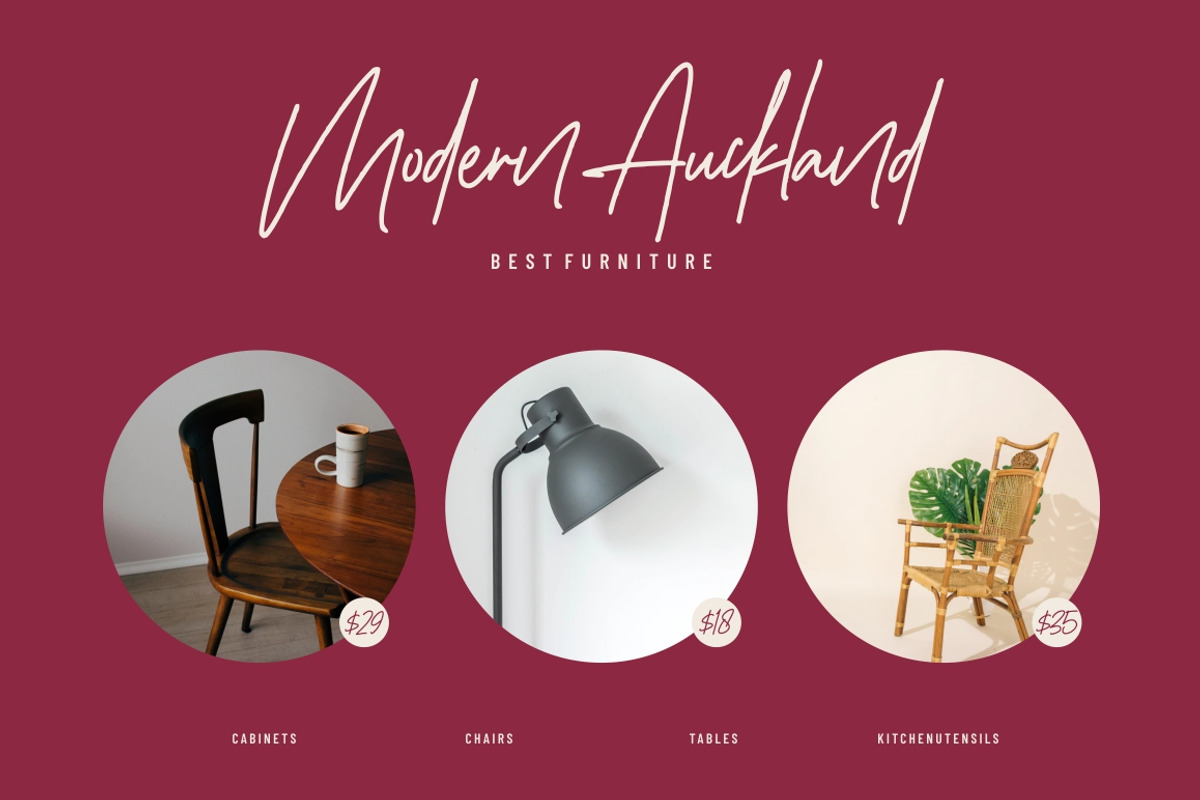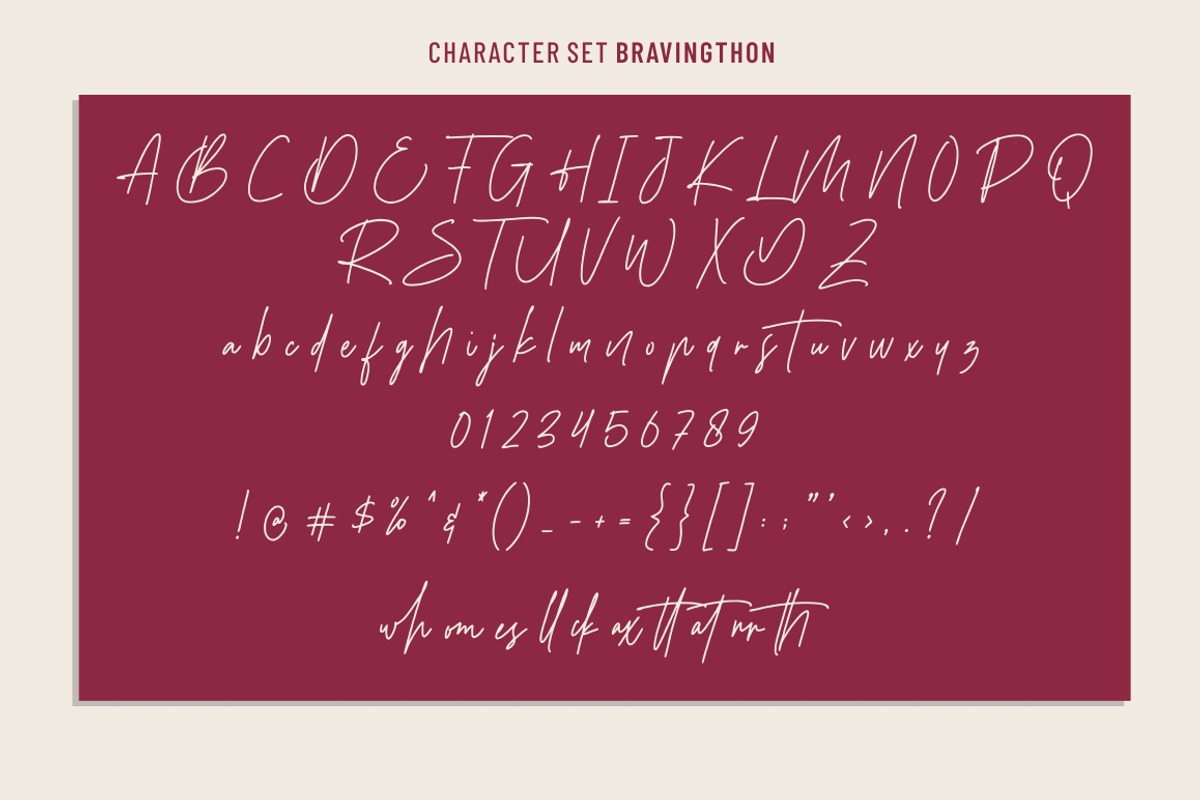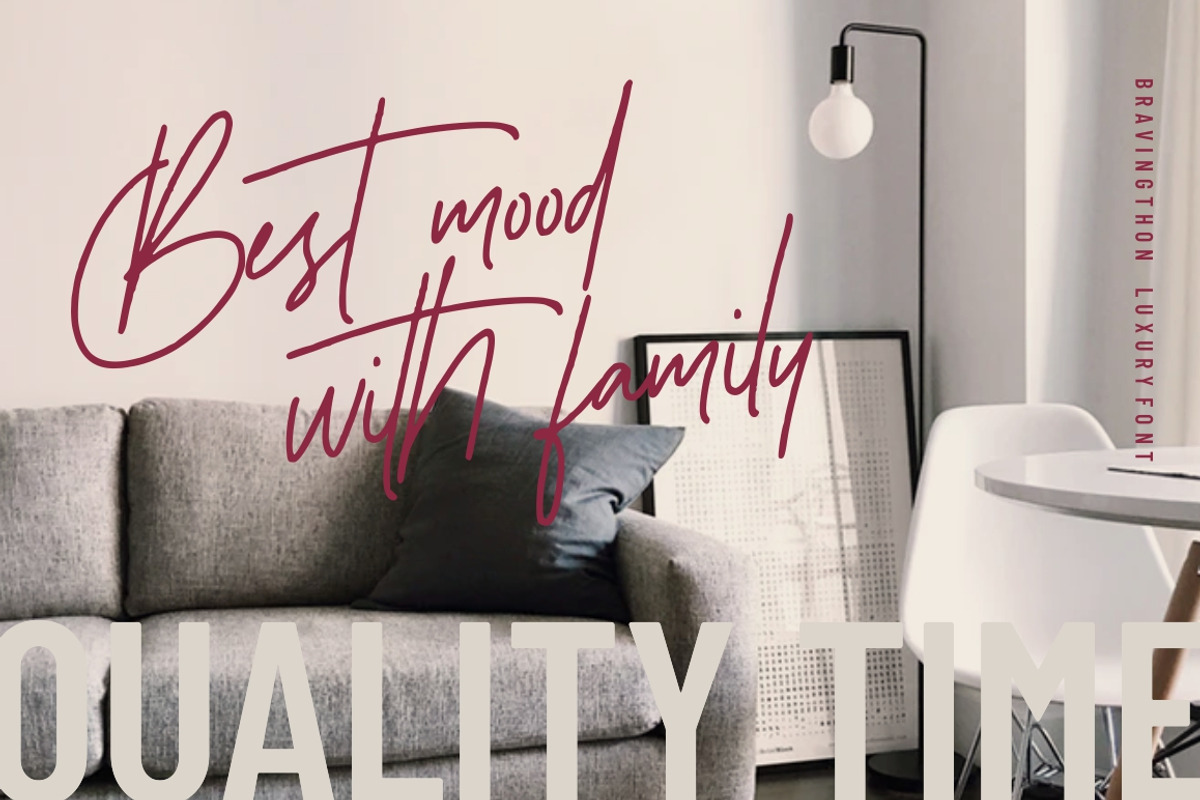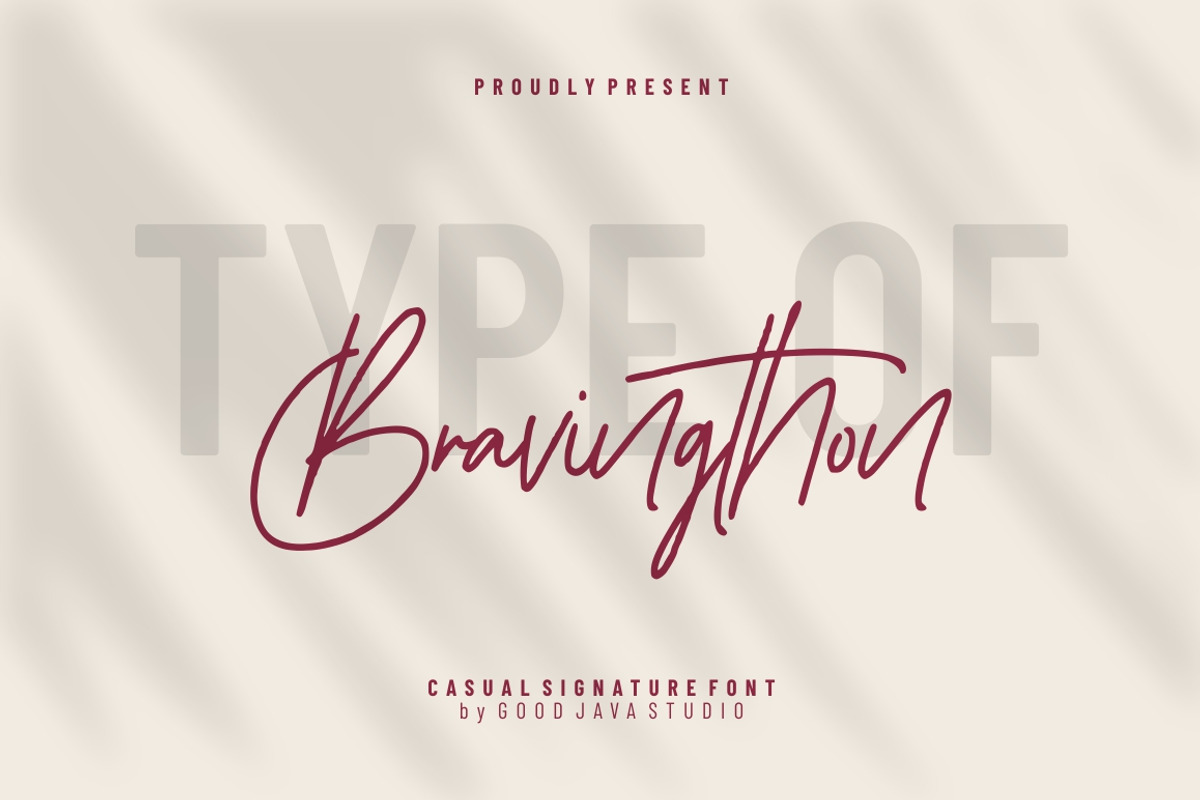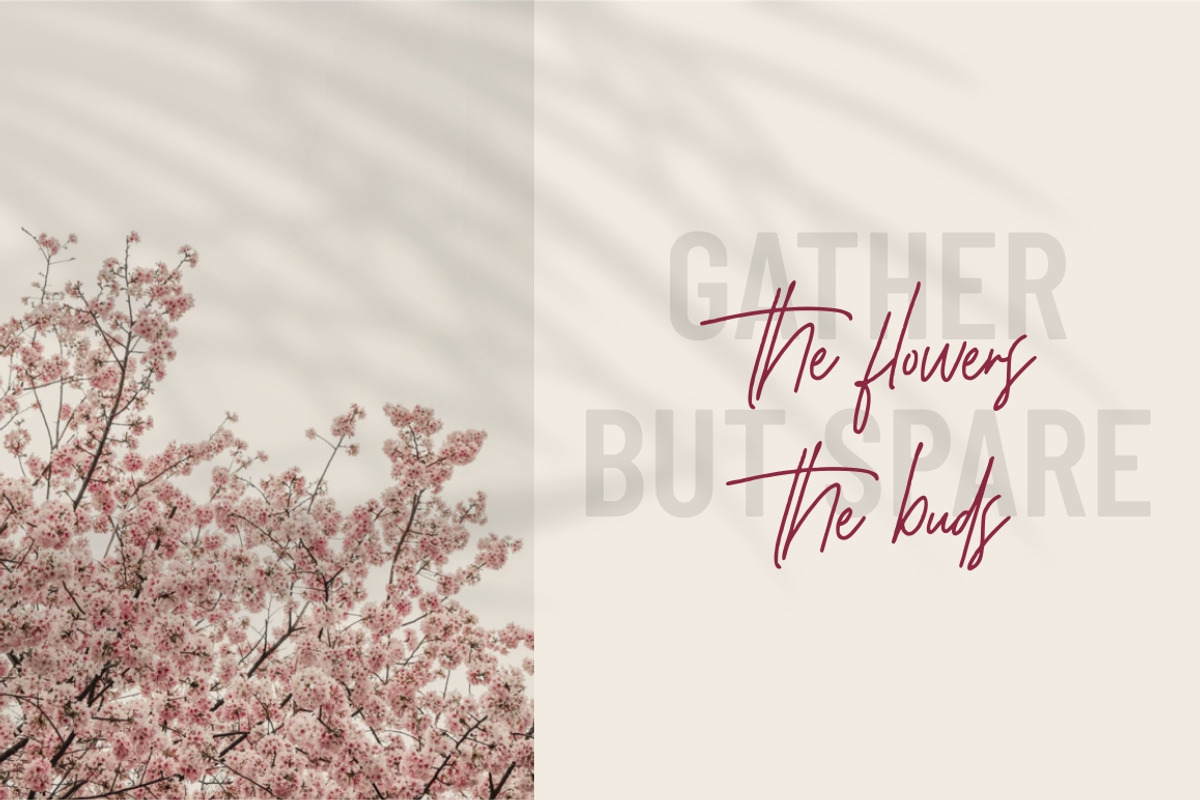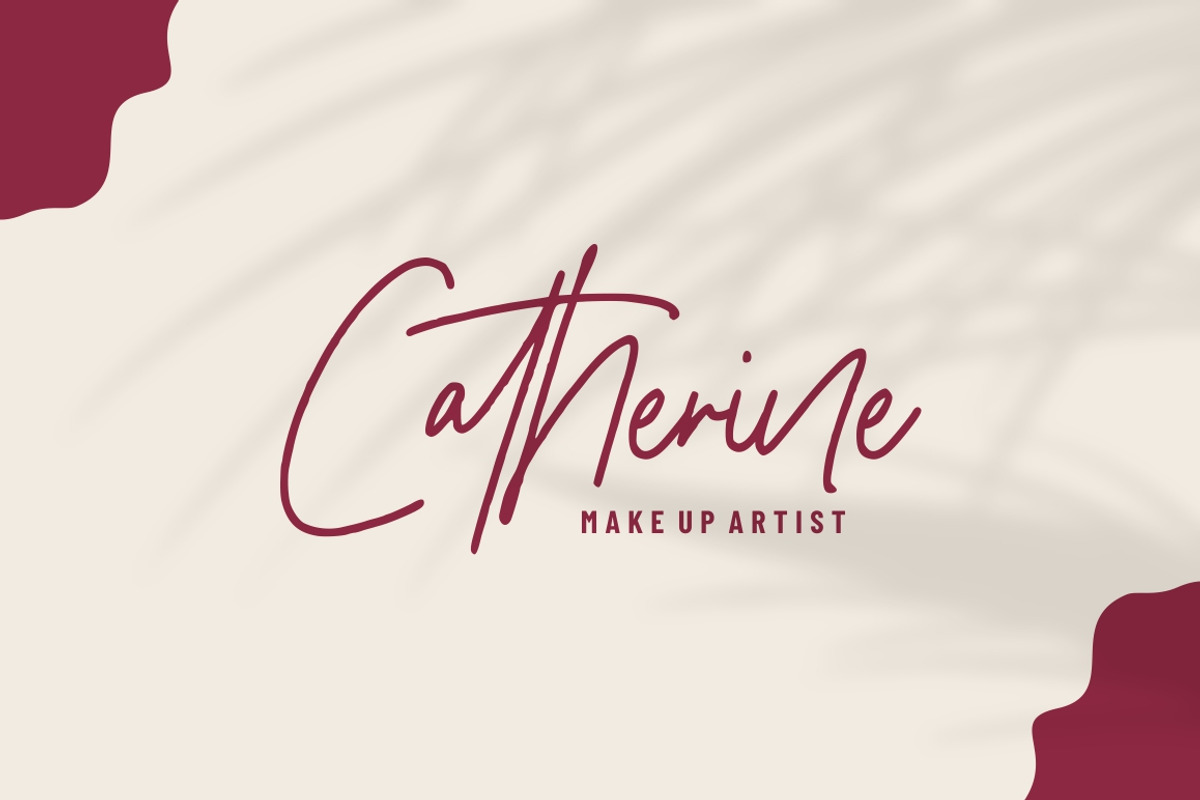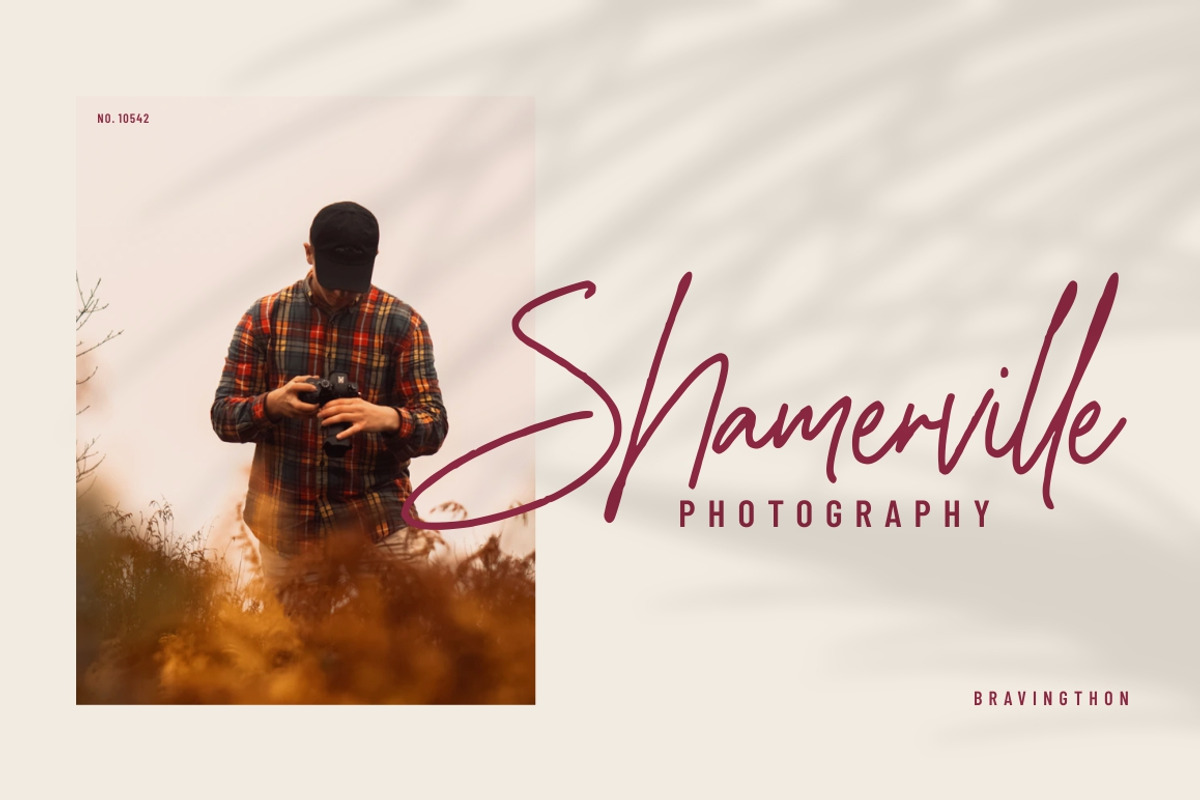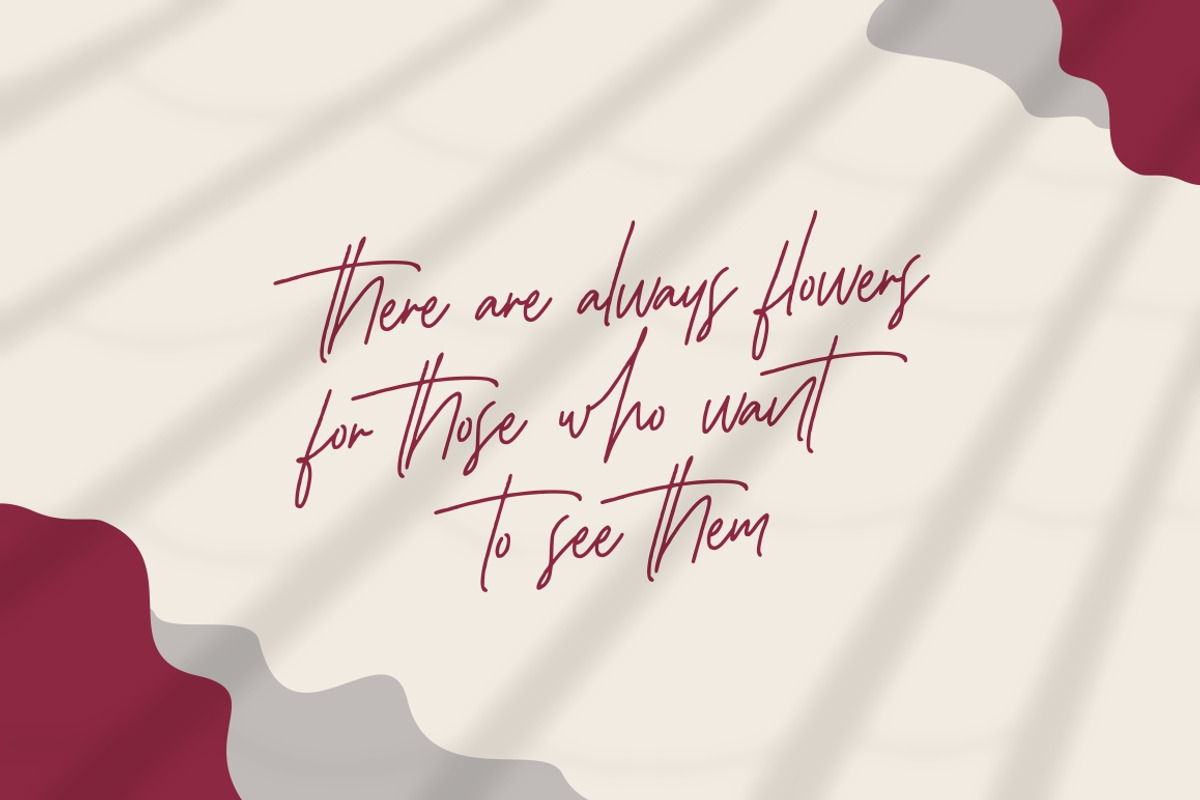
Bravingthon - Casual Signature Font
Bravingthon - Casual Signature Font is a natural & modern handwritten font. I'ts Perfect for logo, invitation, stationery, wedding designs, social media posts, advertisements, product packaging, product designs, label, photography, watermark, special events or anything. This font include : Bravingthon OTF-TTF-WOFF, Ligatures, and also Multilingual support.
What's Advantages Bravingthon ?
Very great for branding, logotype, handletteing, invitations, or fashion branding.